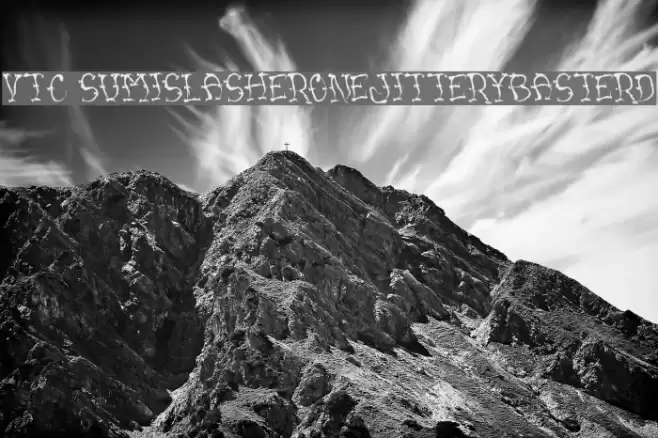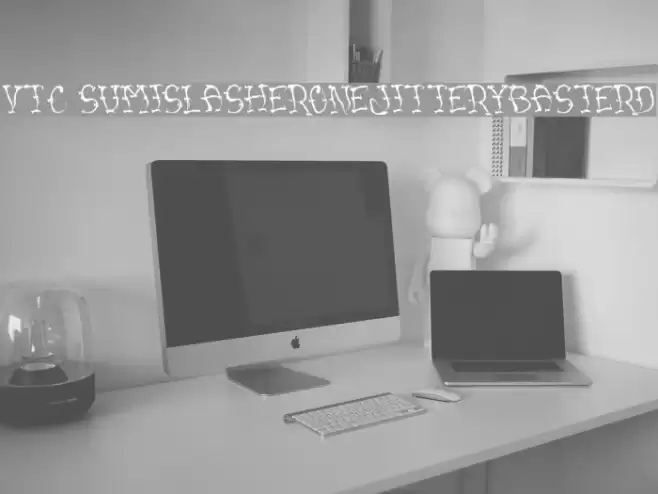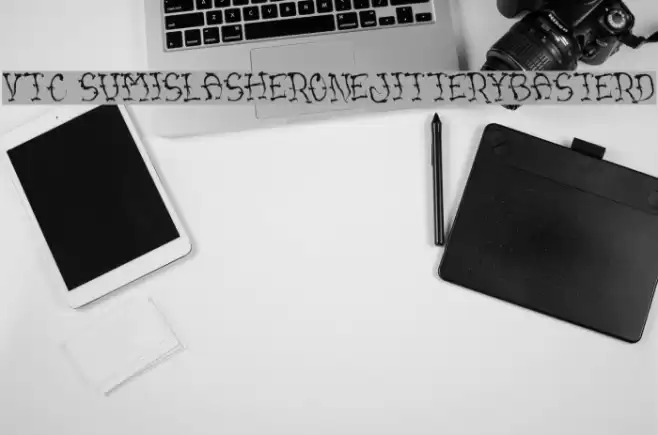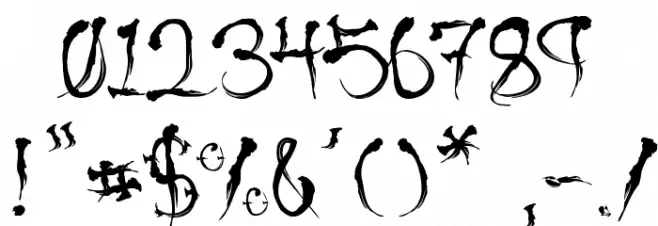
VTC SumiSlasherOneJitteryBasterd Font
VTC SumiSlasherOneJitteryBasterd Description
This font features a highly decorative and edgy style, characterized by sharp, thorn-like extensions and irregular strokes that give it a chaotic yet artistic appearance. The letters are bold and dynamic, with a sense of movement and energy that makes them stand out. The uppercase and lowercase letters maintain a consistent style, with exaggerated curves and pointed ends that create a sense of drama. The numbers and special characters follow the same design principles, ensuring a cohesive look across all glyphs. This font is perfect for projects that require a bold statement and a touch of rebellious flair.
A bold, edgy font with thorn-like extensions and dynamic strokes from Uncategorized fonts.